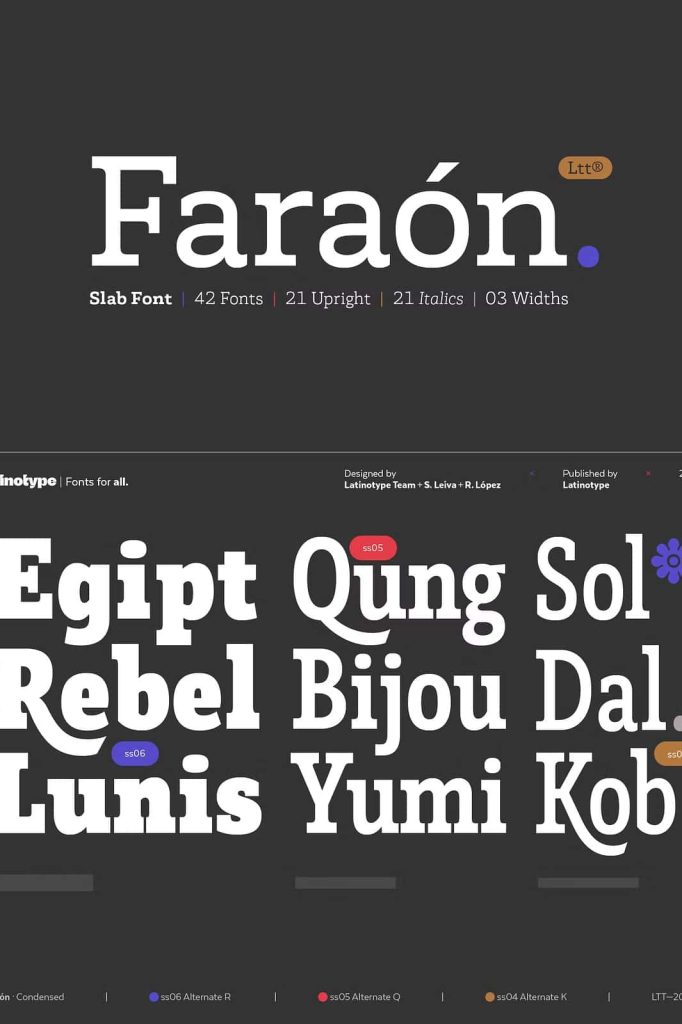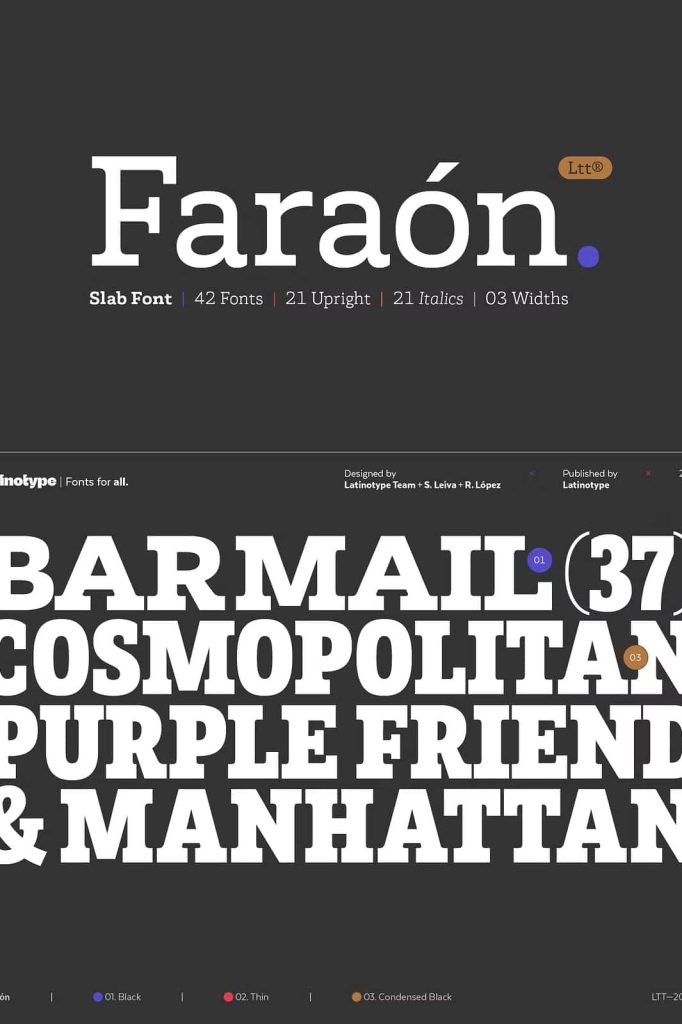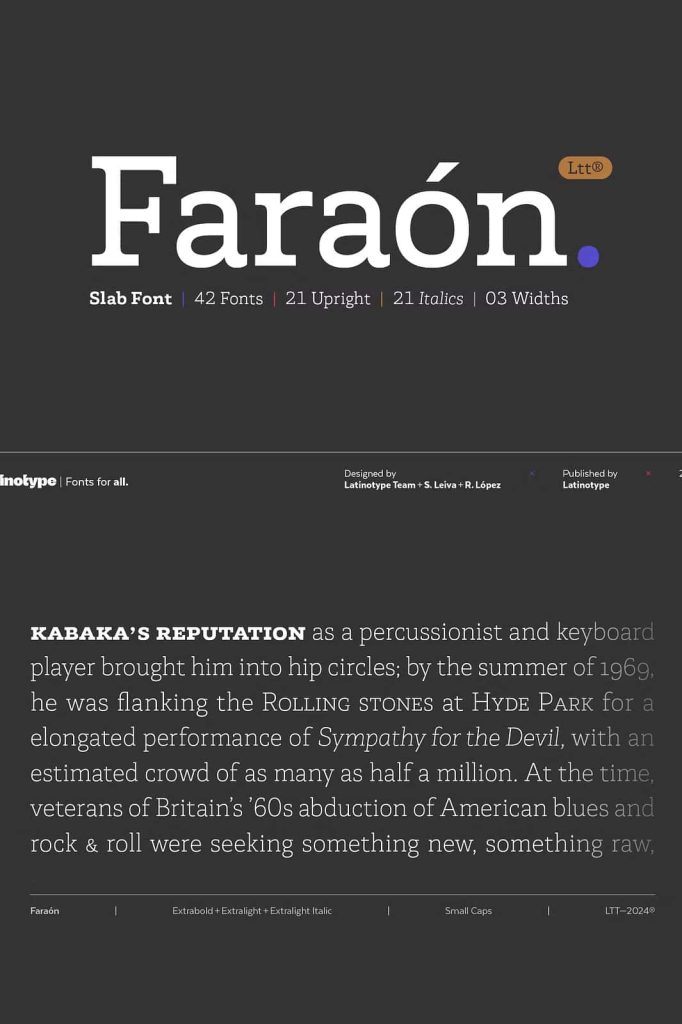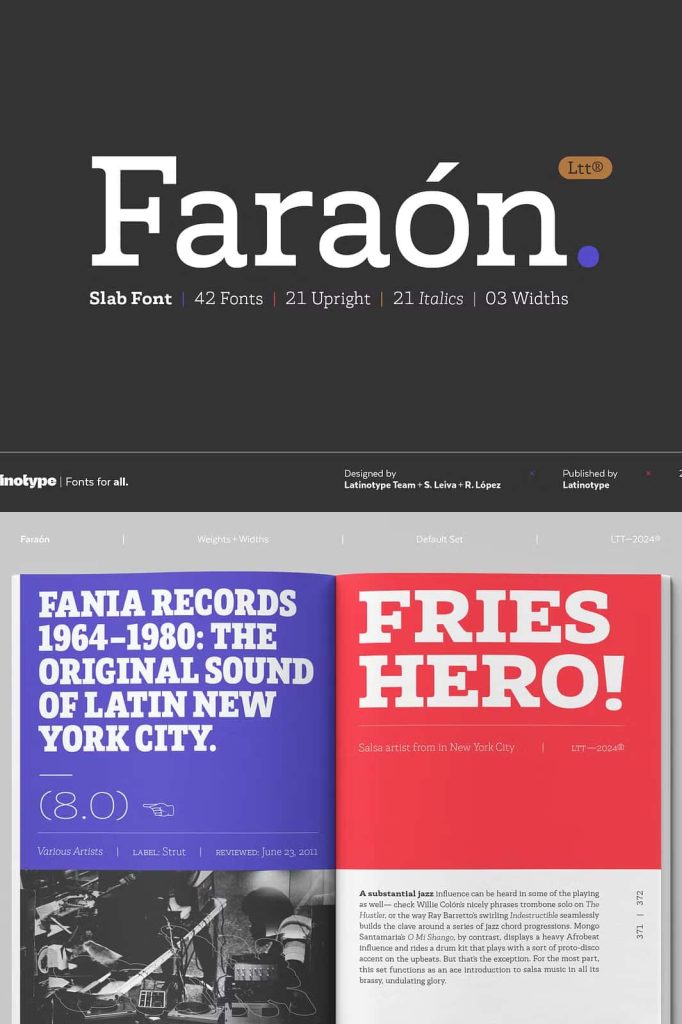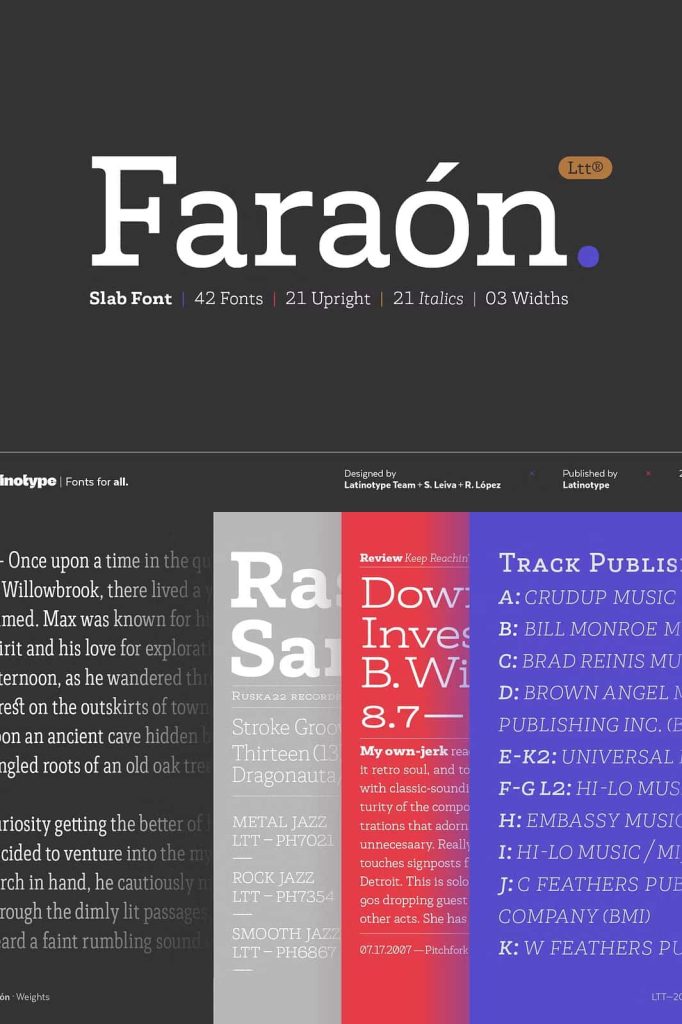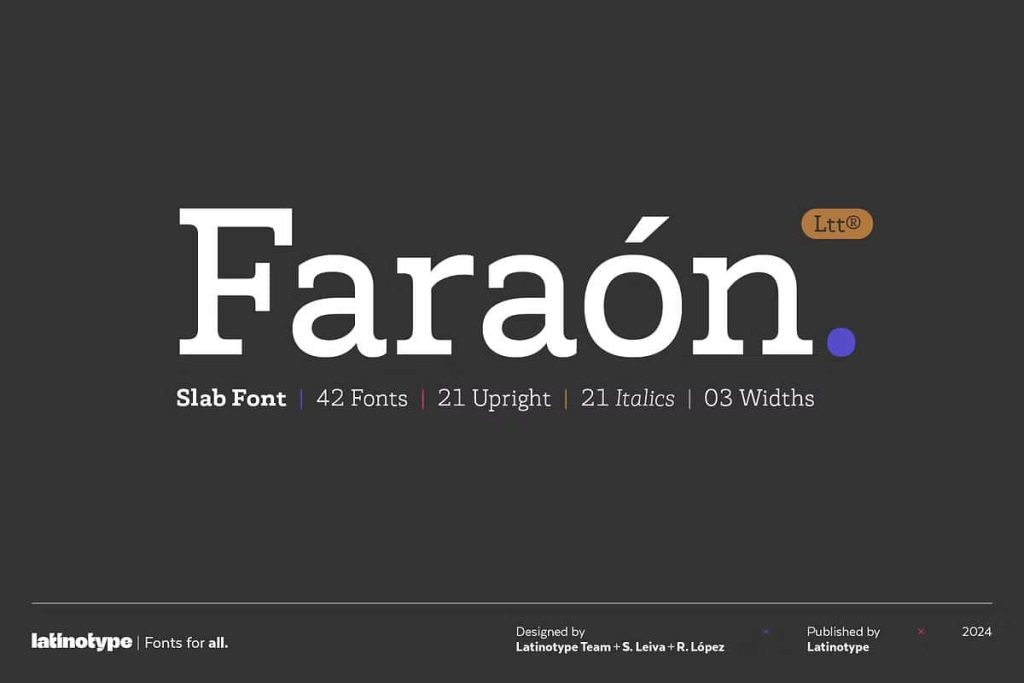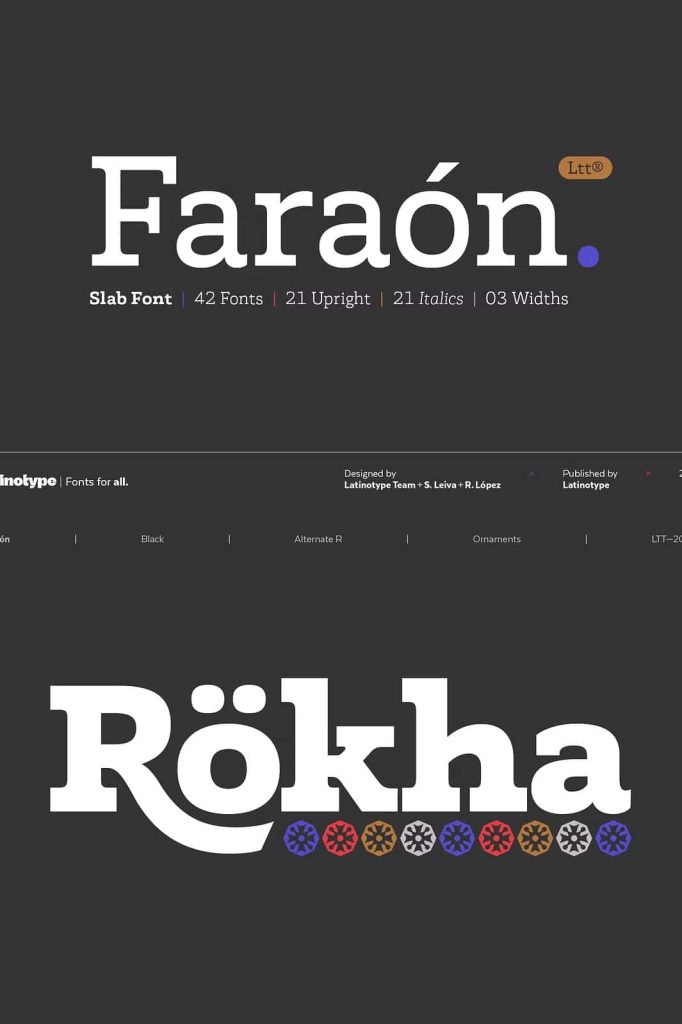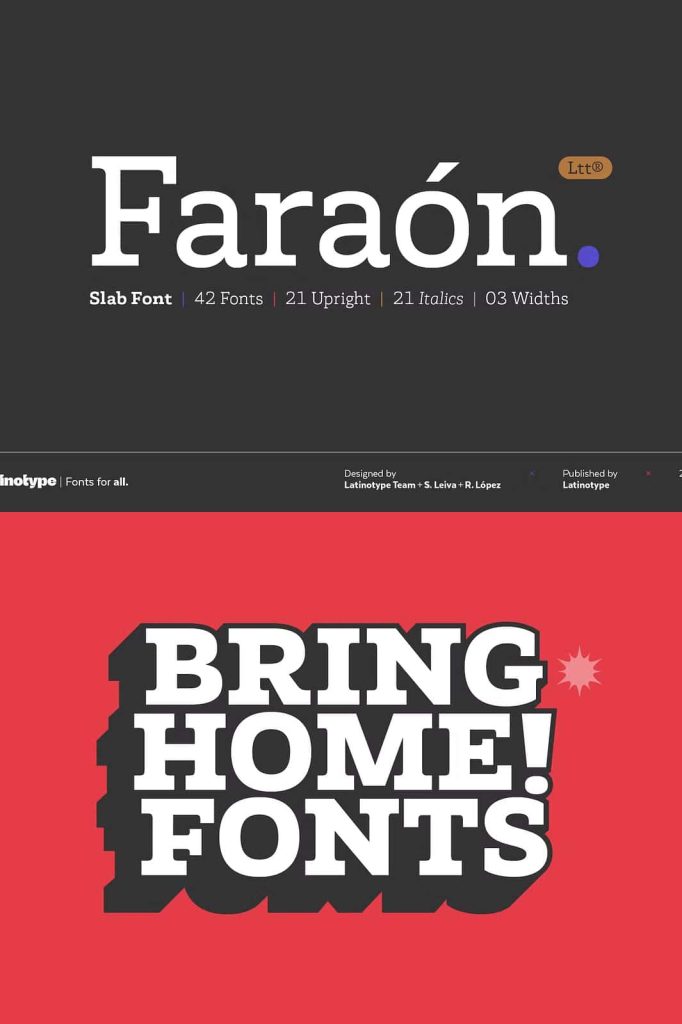
Faraón is a typeface deeply rooted in tradition, presenting a strong and kind personality. Carefully designed with 3 types of widths, facilitating the creation of dynamic and harmonious designs. With a variant system that ensures functionality and readability, and a soft and fresh style that adapts to headlines and paragraphs.